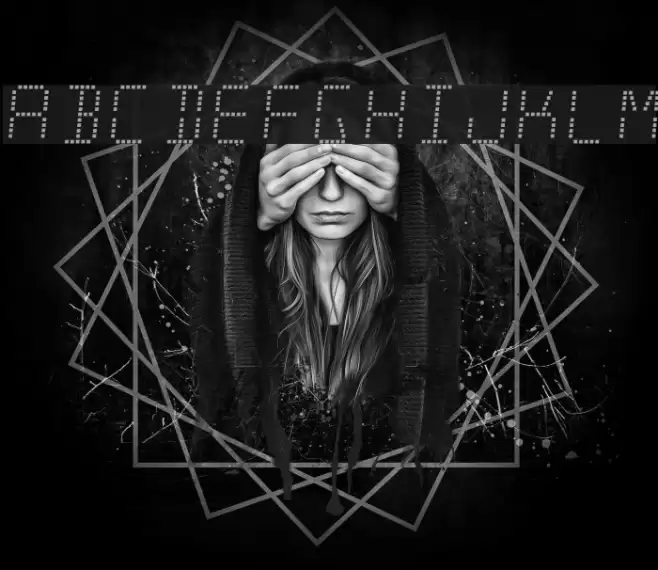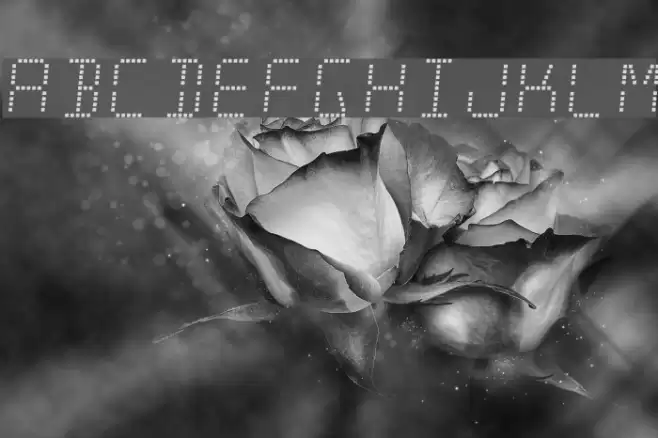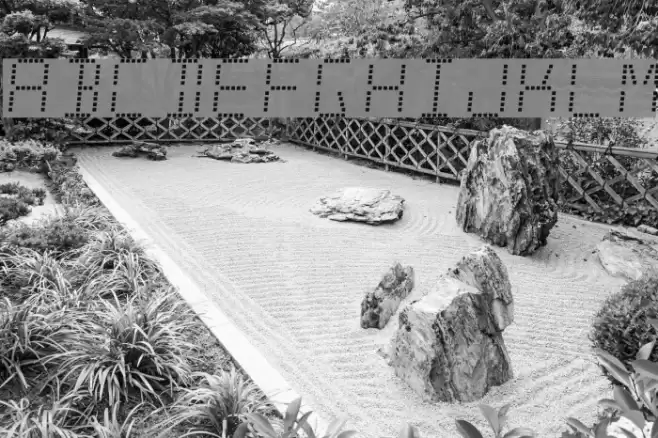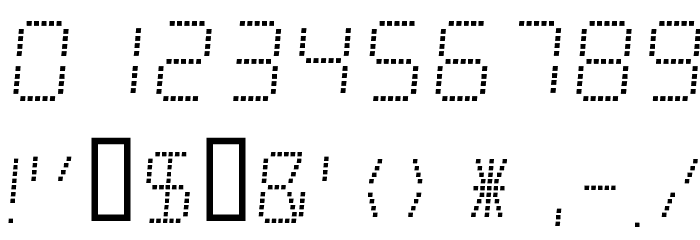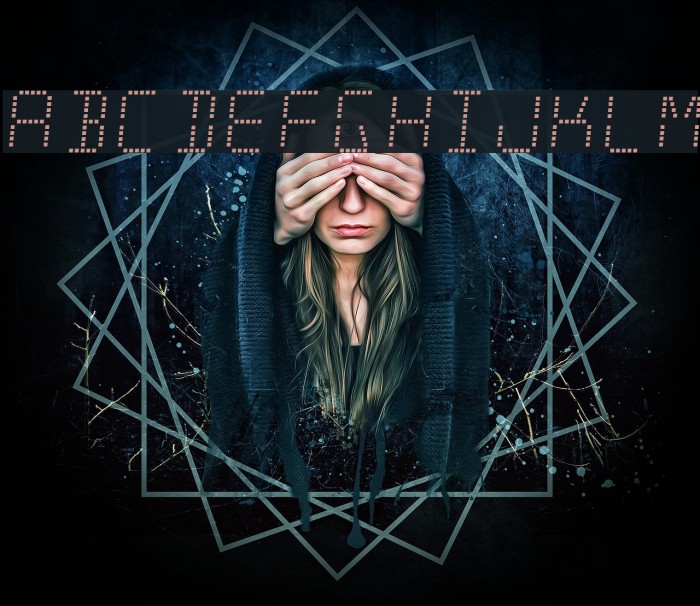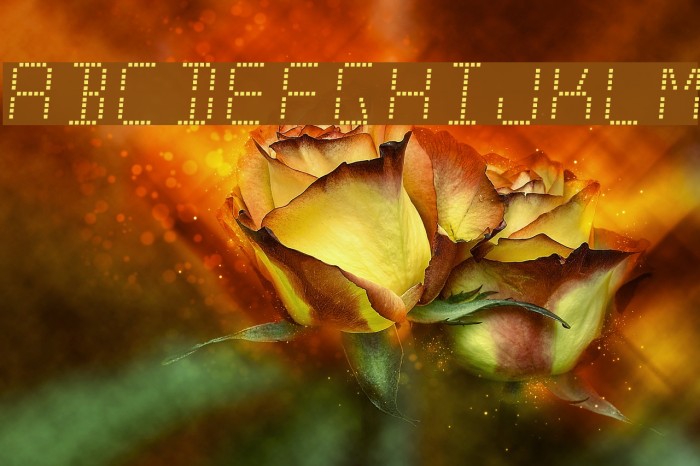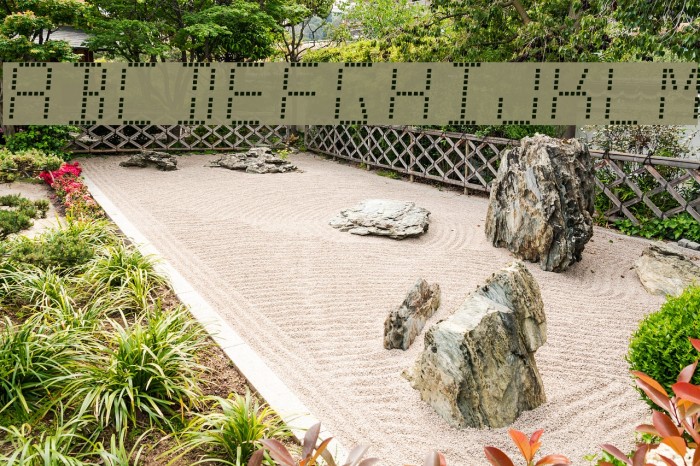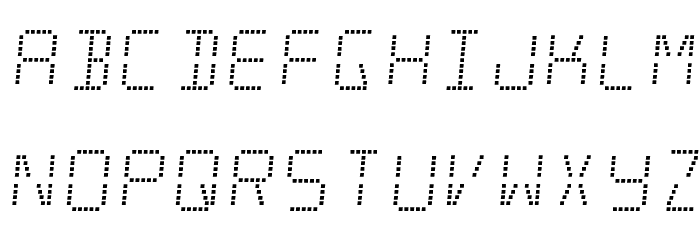
Minisystem Font
Minisystem Description
This font features a distinctive dotted pattern that forms each character, giving it a digital and modern appearance reminiscent of LED displays or dot matrix printers. The characters are evenly spaced and maintain a consistent height, creating a uniform and structured look. The uppercase and lowercase letters, as well as numbers and special characters, are all constructed with this dotted style, providing a cohesive visual theme. The font's geometric and minimalistic design makes it suitable for projects that require a tech-savvy or futuristic aesthetic.
A modern, dotted font with a digital, tech-inspired look from Dotted fonts.
- Proposed Projects: Ideal for digital displays, tech-themed designs, futuristic branding, and electronic device interfaces.
- Use Case: Headlines, Logos, Digital Displays